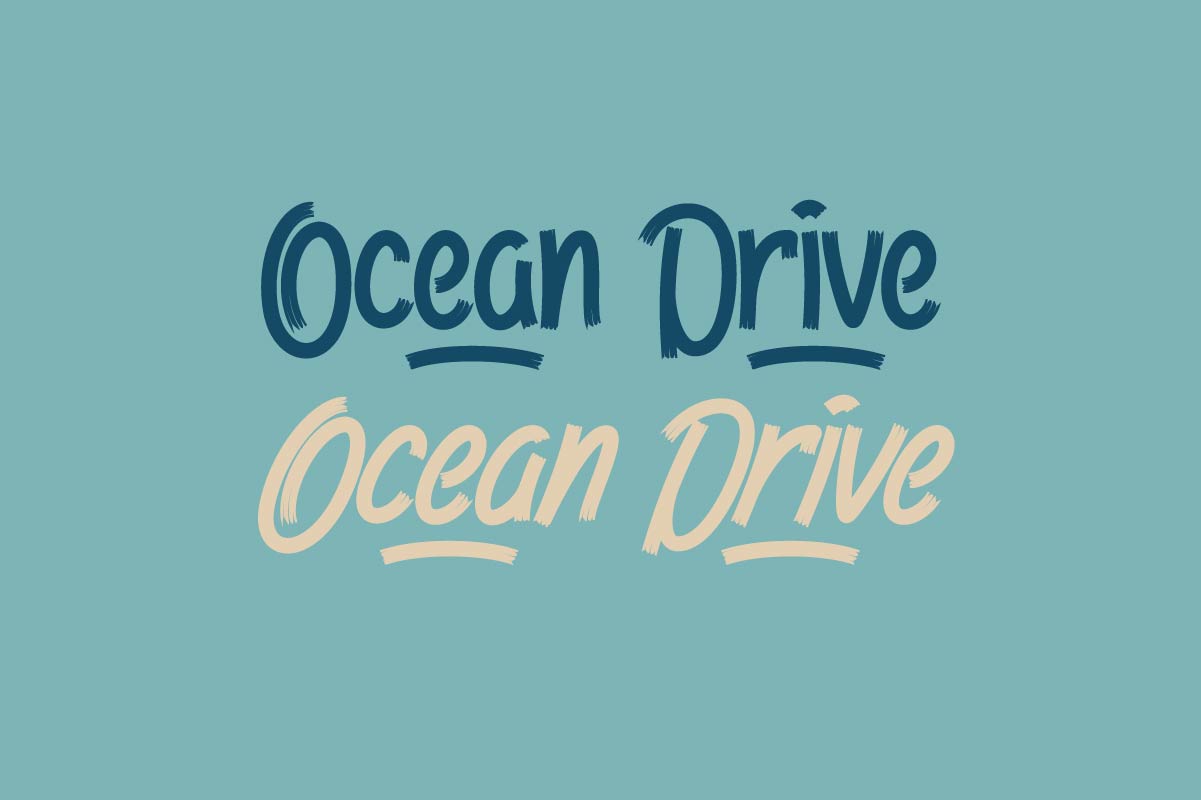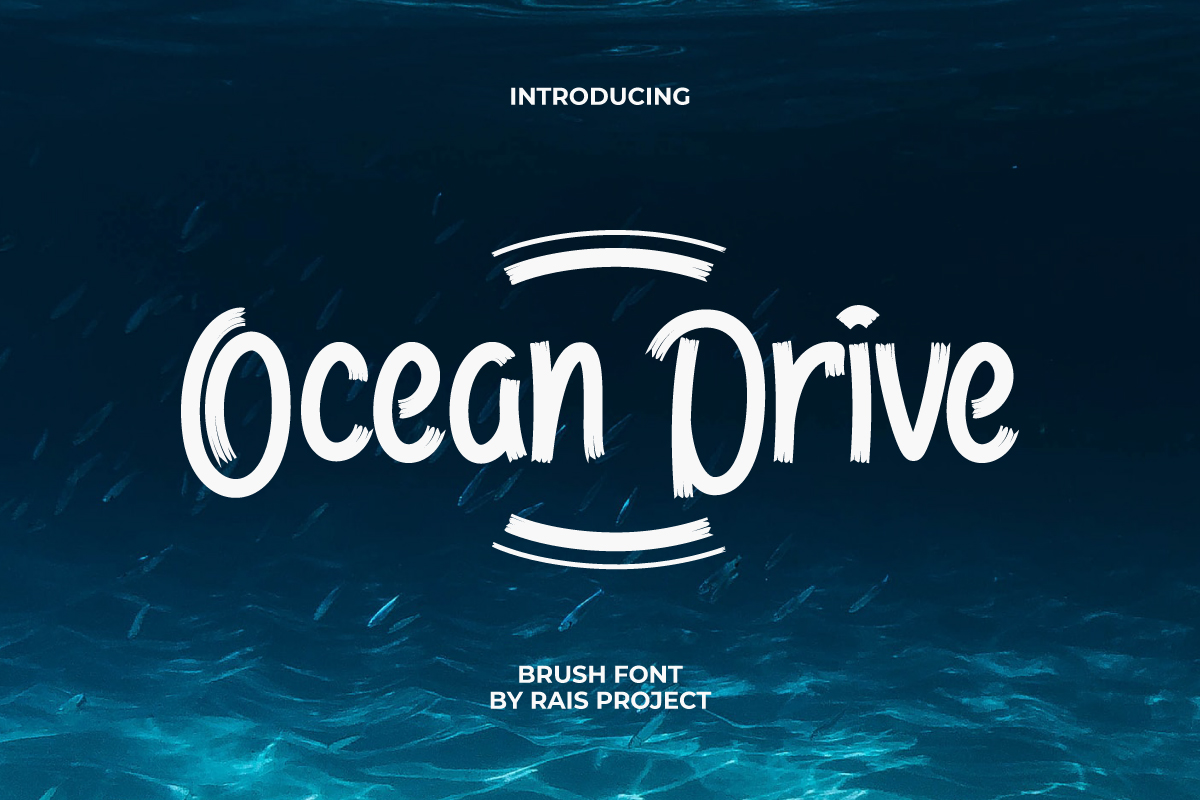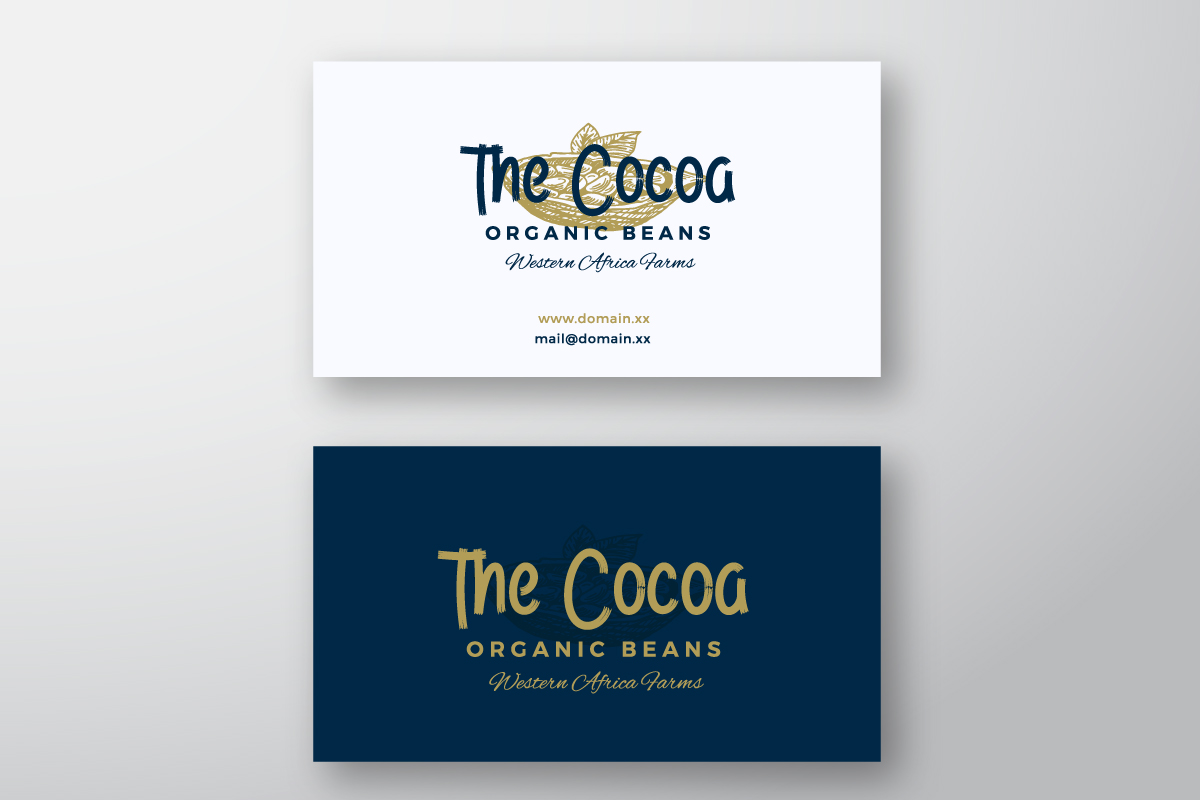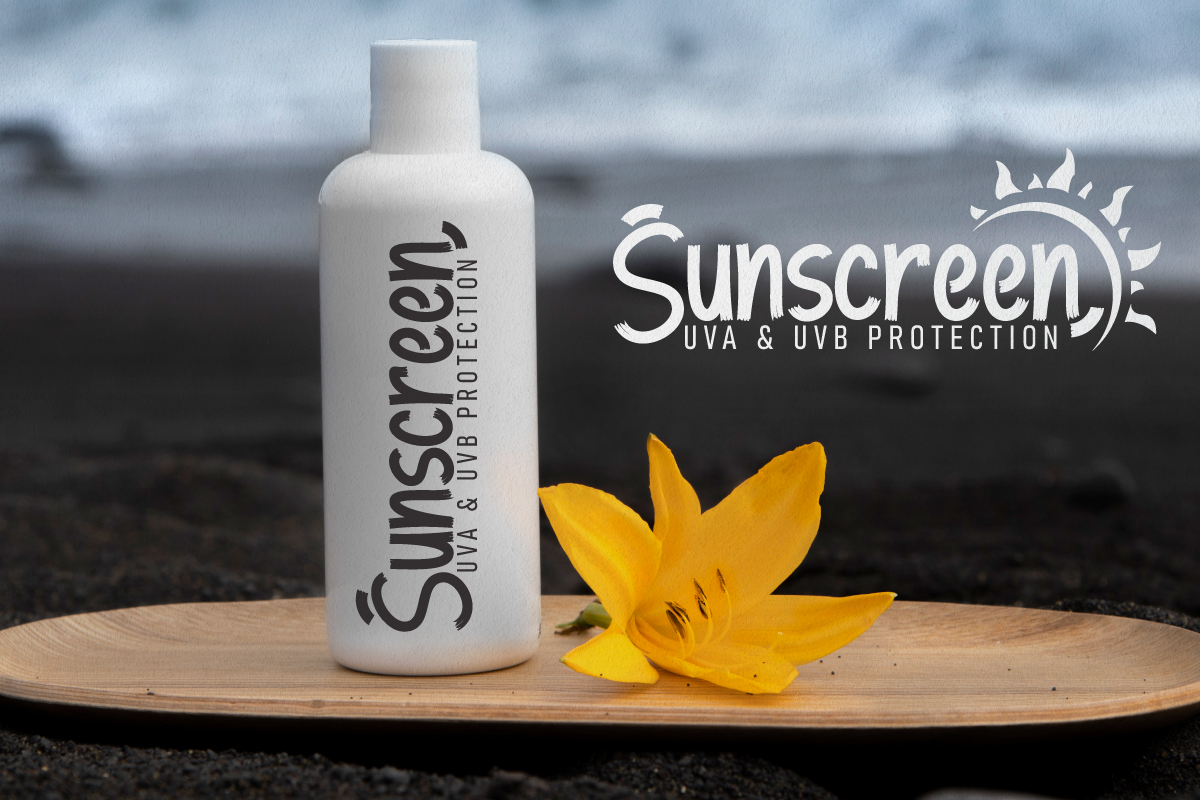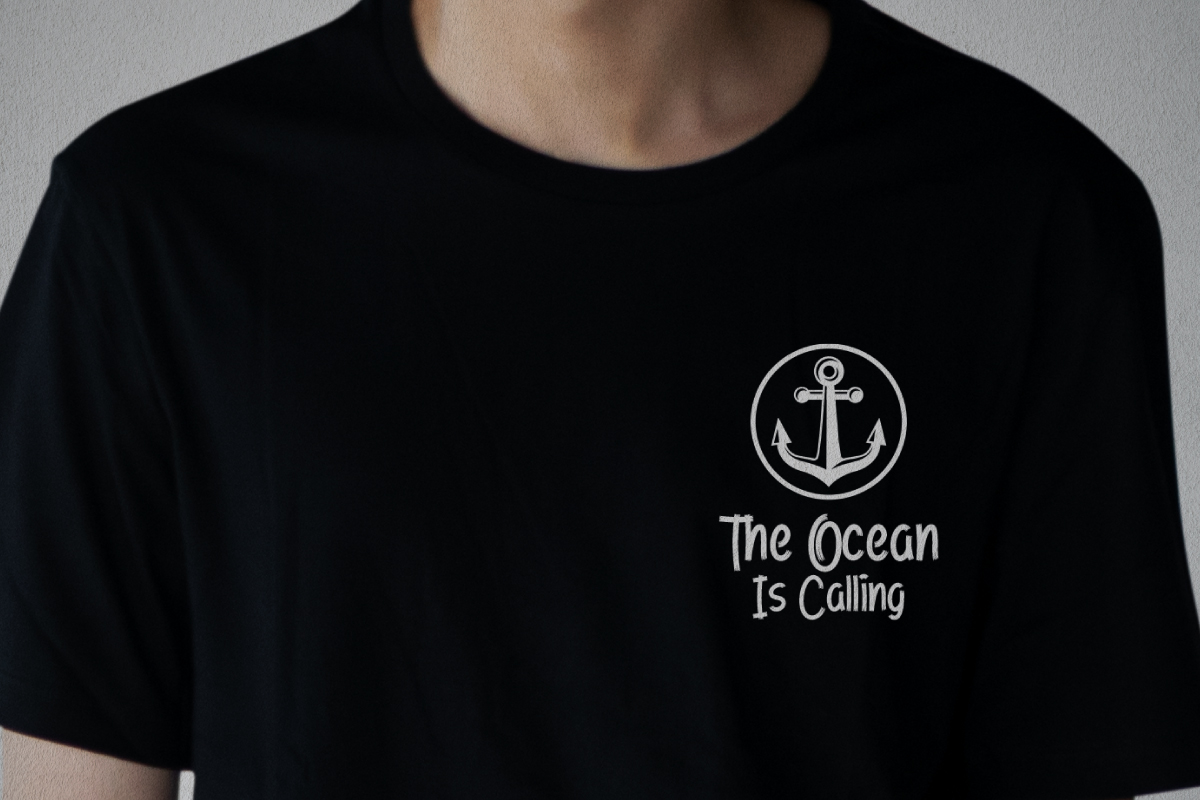
Ocean Drive Font
Ocean Drive Display Font
This font is remotely made in Bandung and Garut, Indonesia. The font was handcrafted for any your special projects including : headlines, promotion, events, branding, advertising, magazine, signage, invitation, stationery, social media posts, label, or and any projects that need unique strong style. The theme/industries of this font is School, kindergarten, Vintage, Horror, Movie, Game, Magazine, Music, Video, Sports, etc